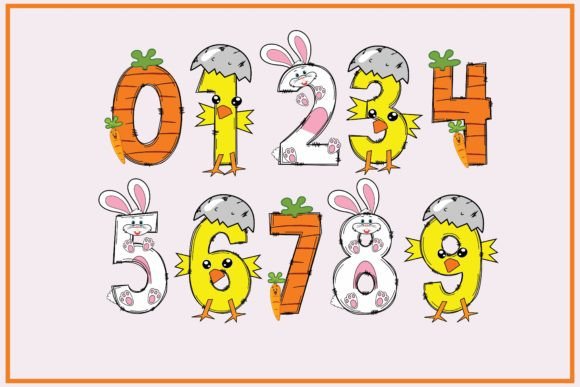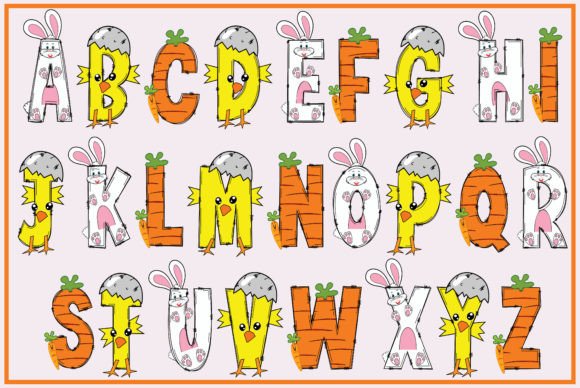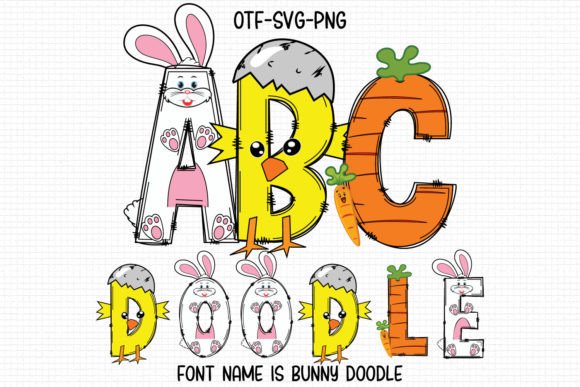
Bunny Doodle Font: The Sweet and Chic Addition to Your Easter Creations
Are you looking for a font that can add a touch of sweetness and chicness to your Easter creations? Look no further than the Bunny Doodle Font! This bubbly color font is perfect for designers and crafters who want to create eye-catching and festive designs for the Easter season. In this article, we’ll take a closer look at the Bunny Doodle Font, its features, and how you can use it to bring your Easter creations to life.
What is Bunny Doodle Font?
Bunny Doodle Font is a unique and colorful font that is designed to add a playful and whimsical touch to your designs. It’s a color font, which means it comes with multiple colors that can be used to create stunning and eye-catching designs. The font is inspired by the sweet and adorable Easter bunnies that we all know and love, making it perfect for Easter-themed designs.
Features of Bunny Doodle Font
The Bunny Doodle Font has several features that make it stand out from other fonts. Here are a few:
- Sweet and Chic Design: The Bunny Doodle Font has a sweet and chic design that is perfect for Easter-themed designs. The font is designed to be playful and whimsical, making it perfect for creating eye-catching designs.
- Color Font: The Bunny Doodle Font is a color font, which means it comes with multiple colors that can be used to create stunning and eye-catching designs.
- Easily Customizable: The font is easily customizable, allowing you to adjust the colors, size, and style to fit your design needs.
How to Use Bunny Doodle Font in Your Easter Creations
Using the Bunny Doodle Font in your Easter creations is easy! Here are a few ideas to get you started:
- Easter Cards and Invitations: Use the Bunny Doodle Font to create eye-catching Easter cards and invitations that will impress your friends and family.
- Easter Social Media Graphics: Create stunning Easter social media graphics using the Bunny Doodle Font. You can use it to create graphics for Easter-themed posts, ads, and more.
- Easter Craft Projects: Use the Bunny Doodle Font to add a personal touch to your Easter craft projects, such as Easter egg decorations, bunny-themed crafts, and more.
Tips for Getting the Most Out of Bunny Doodle Font
Here are a few tips for getting the most out of the Bunny Doodle Font:
- Experiment with Different Colors: The Bunny Doodle Font comes with multiple colors, so don’t be afraid to experiment with different color combinations to create unique and eye-catching designs.
- Pair it with Other Fonts: Pair the Bunny Doodle Font with other fonts to create interesting and dynamic designs.
- Use it in Combination with Images: Use the Bunny Doodle Font in combination with images to create stunning and eye-catching designs.
The Bunny Doodle Font is a sweet, chic, and bubbly color font that is perfect for adding a touch of whimsy and playfulness to your Easter creations. With its unique design, multiple colors, and ease of use, it’s a must-have font for designers and crafters who want to create eye-catching and festive designs for the Easter season. So why not give it a try and see how easily your Easter creations come to life!